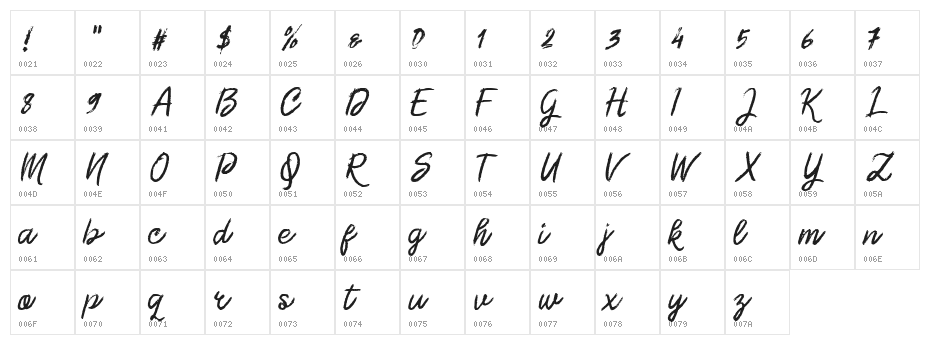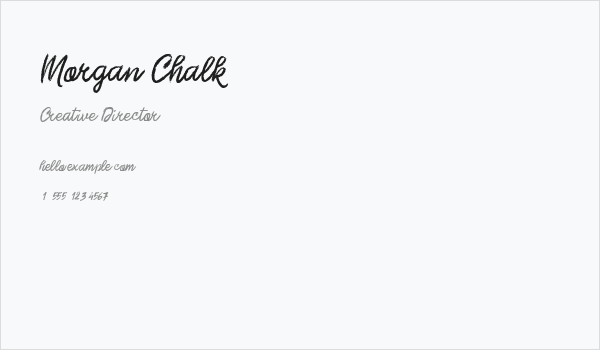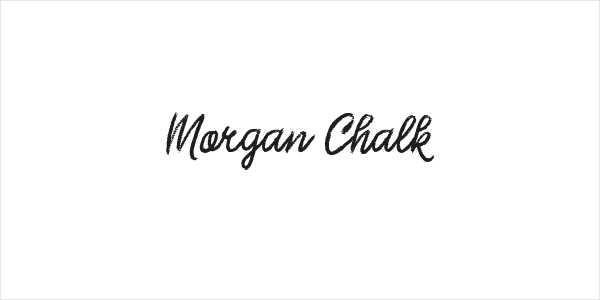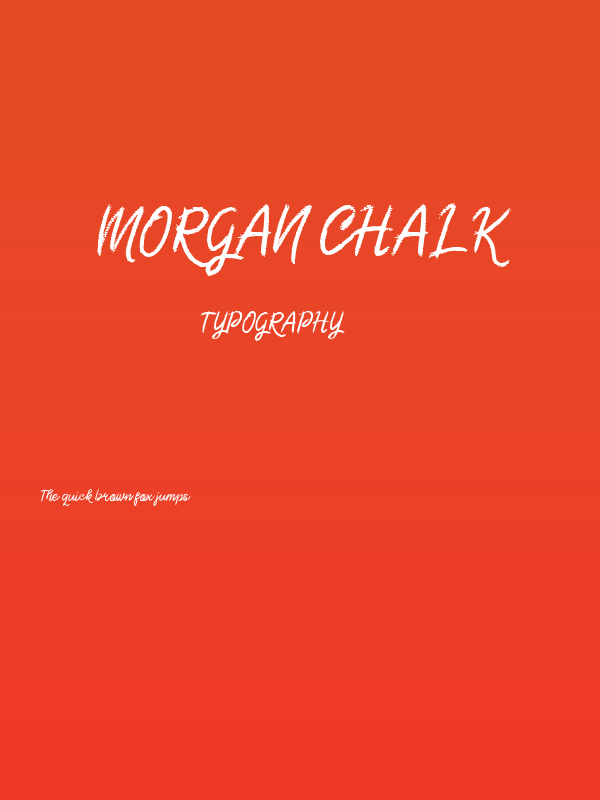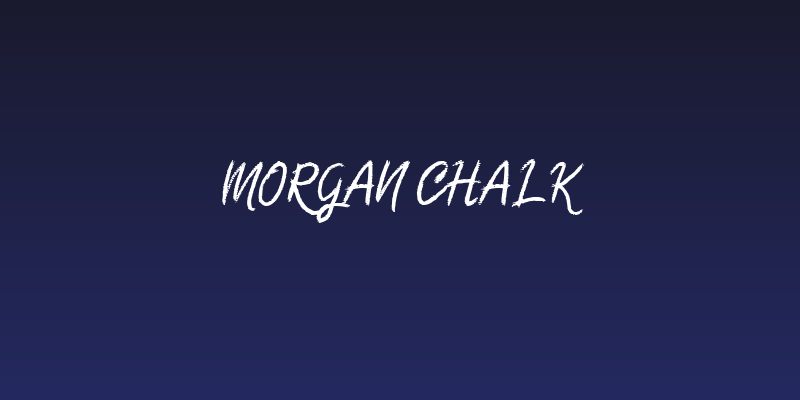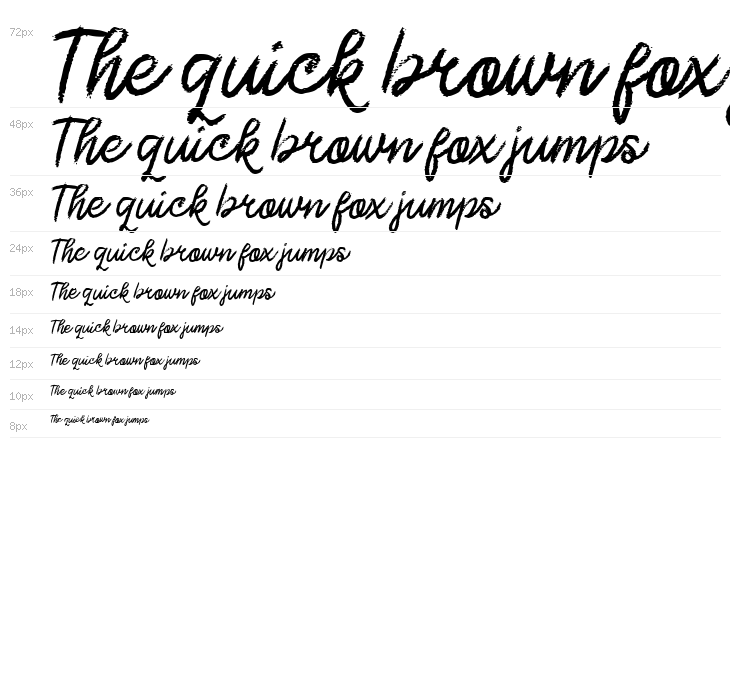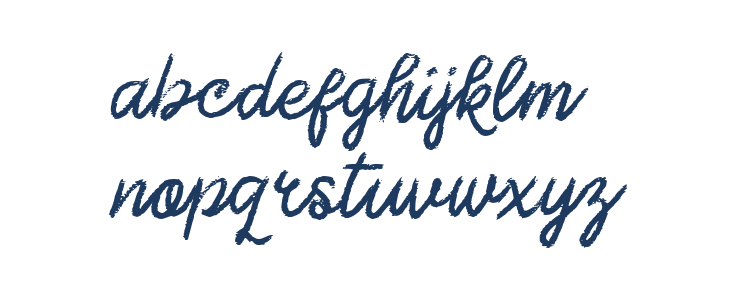
Morgan Chalk Font
| Anwendungsfall | Headlines, Logos, Creative projects |
| Vorgeschlagene Projekte | Ideal for educational materials, creative posters, cafe menus, and artistic branding. |